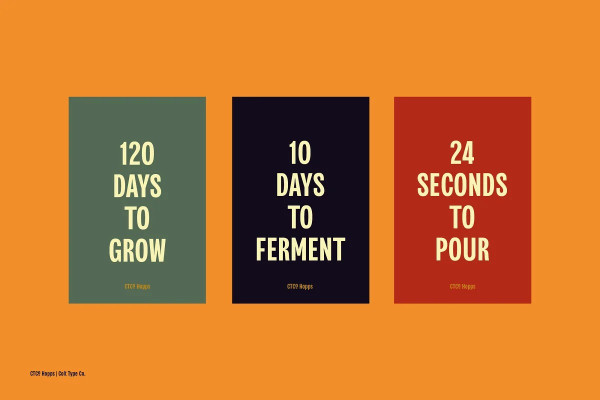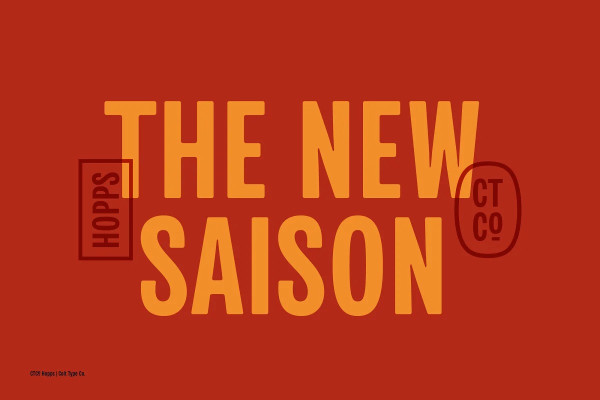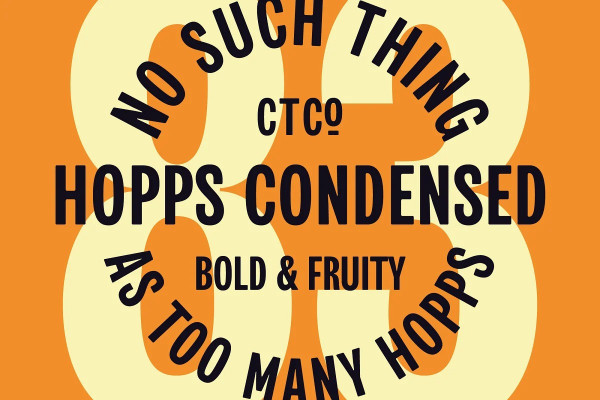
CTCo Hopps Font
CTCo Hopps Font is a condensed display grotesque designed for headlines, posters and logos. Inspired by vintage beer labels and newspaper headlines. Hopps is the perfect typeface to make a big statement with classic impact.